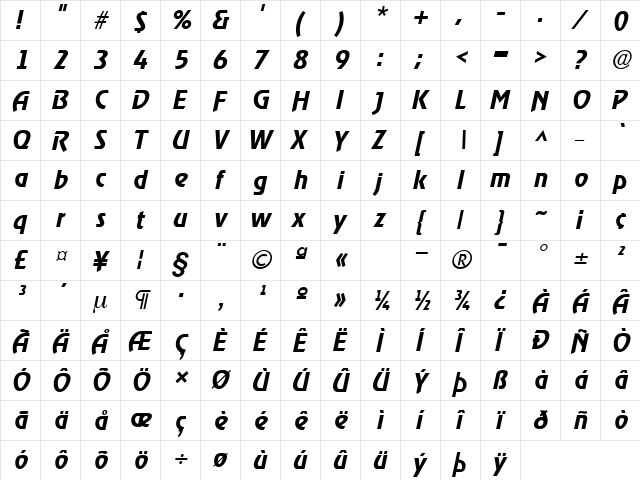
Xanadau Oblique
Design Context for Xanadau Typeface
Xanadau offers clean, dependable letterforms without strong stylistic allegiance, making it a practical choice for designers who need flexibility. The slanted form adds forward momentum and visual energy.
Pro Tip: Use Xanadau for emphasis, pull quotes, and subheadings where its slanted energy can add rhythm to the layout.